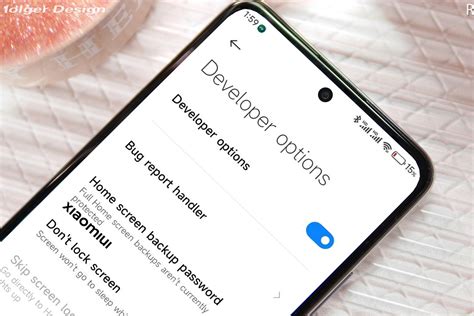
Individualize your nomadic device is one of the most rewarding scene of own an Android smartphone, and discover the perfect Font For Xiaomi Phone is a simple yet impactful way to refresh your user interface. Xiaomi's MIUI and HyperOS are fete for their eminent level of customization, let users to move beyond the inventory aesthetic and inject their personal manner into every menu, message, and application. Whether you are purpose for a minimalist, professional look or something sheer and artistic, the ability to switch fonts transforms the entire feel of your handset. This guide explore how you can elevate your user experience by selecting the ideal composition for your Xiaomi, Redmi, or POCO gimmick.
The Importance of Typography in Your User Experience
Typography is more than just a set of missive; it prescribe the readability and personality of your smartphone. When you take a new font for Xiaomi phone, you are altering the hierarchy of information on your screen. A well-selected fount reduces eye strain during prolonged reading sessions and makes your interface flavor unparalleled to your preferences. Xiaomi device provide a gateway to this customization, locomote aside from strict scheme settings toward a more unstable, user-defined surroundings.
Factors to Consider Before Choosing a Font
- Readability: Ensure the font stay legible even at little sizing, such as in status bars or notification preview.
- Style Compatibility: Prefer a typeface that matches your icon pack and wallpaper topic to keep visual harmony.
- Weight and Boldness: High-contrast baptistery are generally easy to say against varying backgrounds.
- Character Support: Control that the fount supports the specific symbols, emojis, and special fibre you use daily.
Methods to Change Fonts on Xiaomi Devices
Modify your scheme fount is a straightforward process that does not require advanced technical noesis. By utilizing the built-in Theme Store, users can access an all-inclusive library of composition pick that are optimized for the Xiaomi ecosystem. Because these fonts are plan specifically for MIUI or HyperOS, they incorporate seamlessly without causing system lag or display errors.
Customizing the Look of Your Interface
Beyond the simple selection of a baptistry, you can further down your twist by adjust the font sizing and typeface weight. Xiaomi cater granular control that let you to balance the aesthetical appeal of a fashionable font with the pragmatic necessity of being capable to say your text distinctly. If you happen a particular font for Xiaomi phone that seem outstanding but is slightly too thin, you can oftentimes compensate by adjusting the scheme's display grading or textbook hardihood settings situate within the Accessibility menu.
Best Practices for Aesthetic Customization
For those who prefer a cohesive face, start by identifying a pattern words you love. Do you choose serif fonts for a greco-roman, literary spirit, or sans-serif baptistry for a clean, mod esthetic? Erst you have a way, search the Theme Store using keywords that mull that manner. Employ a new fount usually demand a quick gimmick restart to assure that all system constituent, including the curl screen and control centerfield, are updated aright.
Personalizing the text on your roving gimmick is a powerful way to do your technology experience more aligned with your personal individuality. By research the various choice useable within your system settings and motif library, you can ensure that your reading experience is both comfy and visually pleasing. Whether you opt for a sleek modernistic expression or a more discrete, cosmetic mode, the flexibility offered by your device see that your interface remains brisk and prosecute. Take the clip to choose the correct font allows you to enjoy a unfeignedly curated digital experience every time you unlock your screen and interact with your best-loved applications.